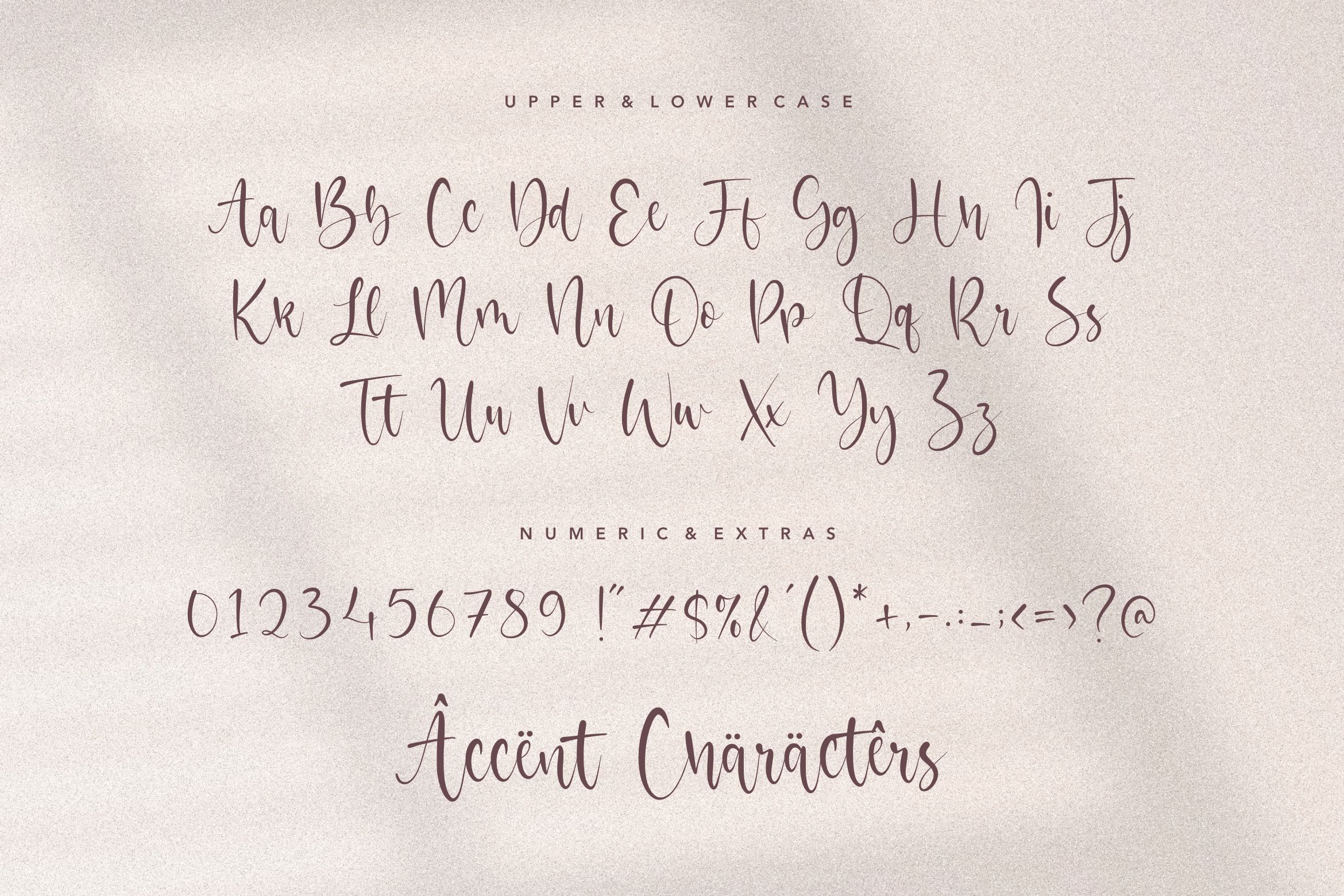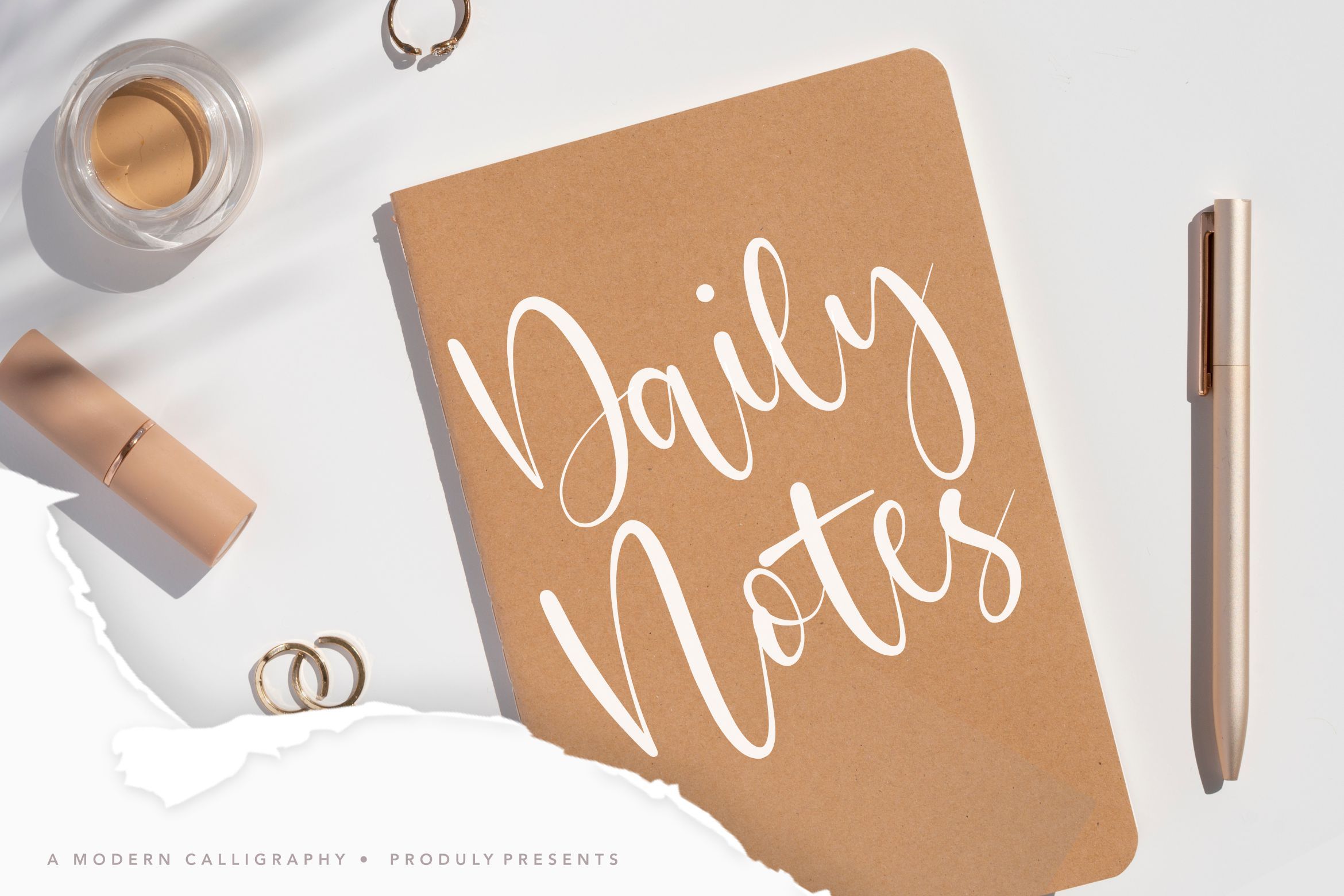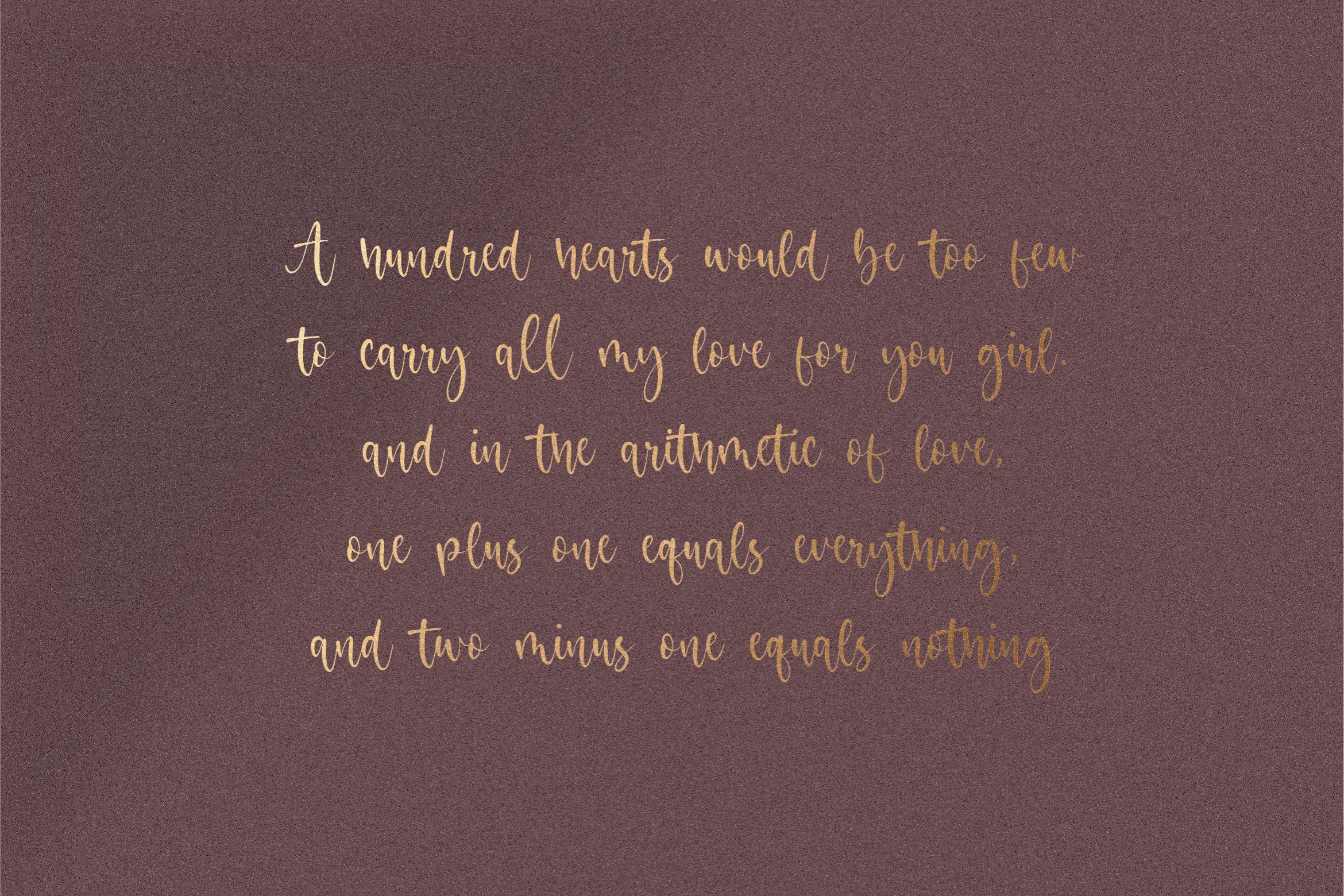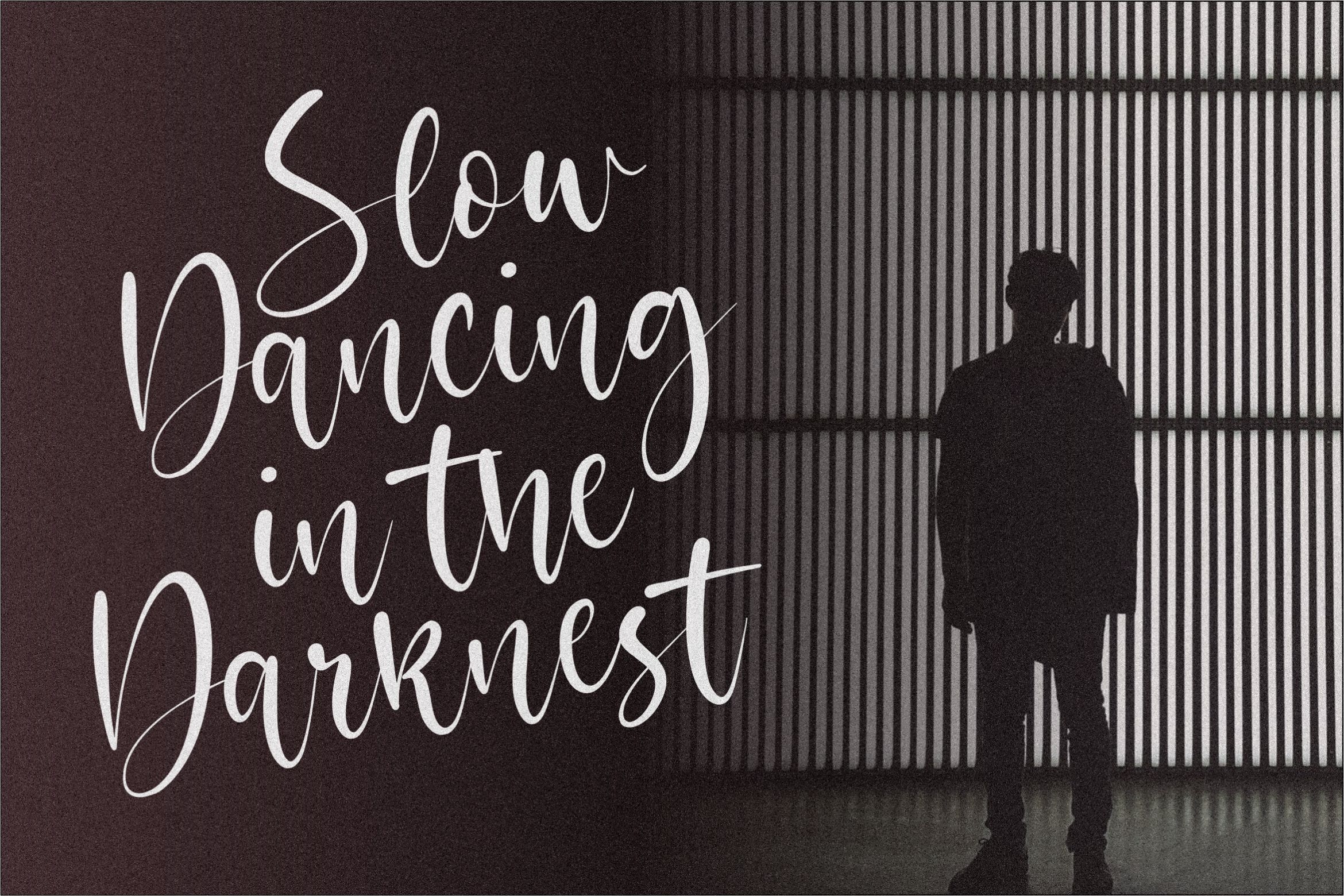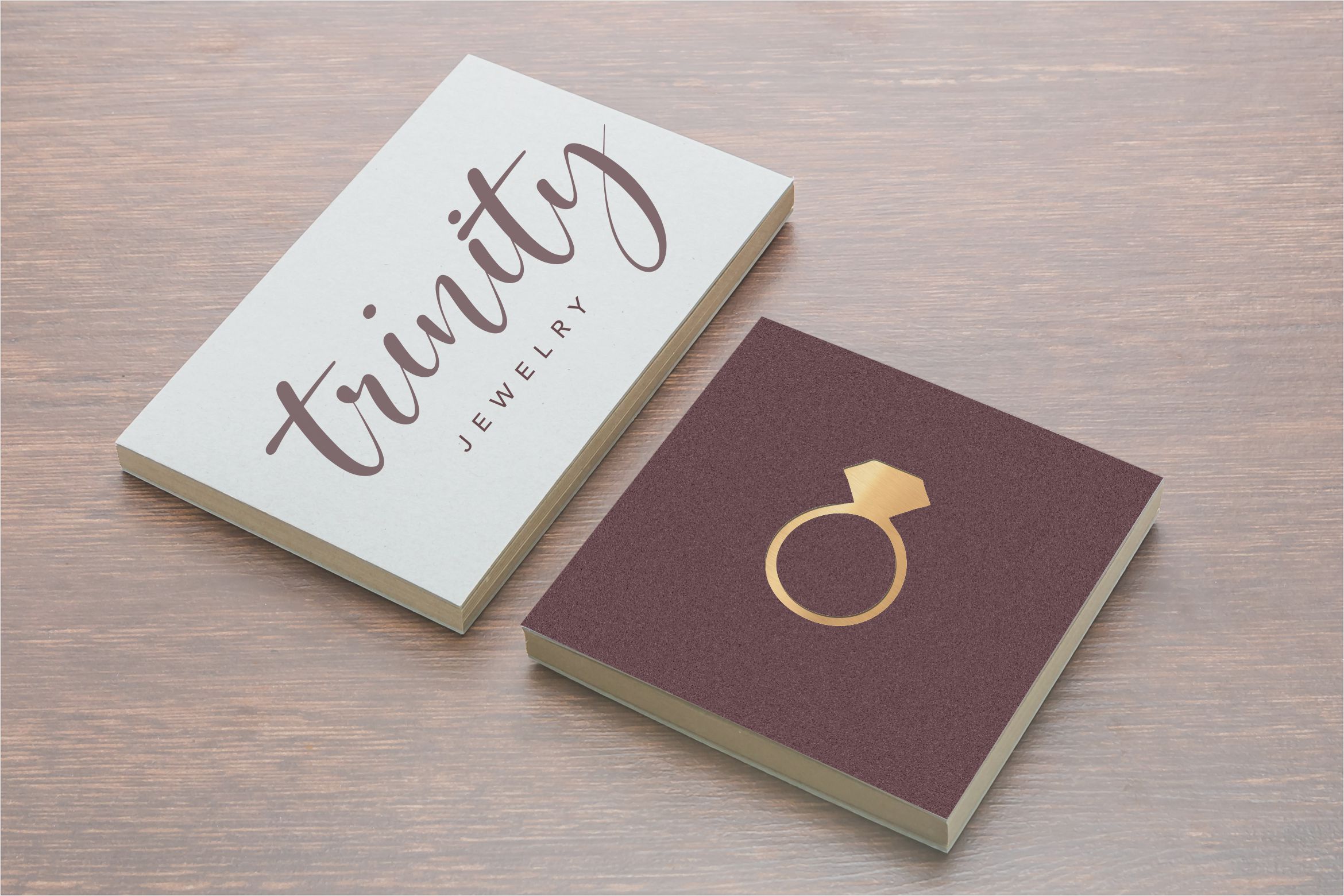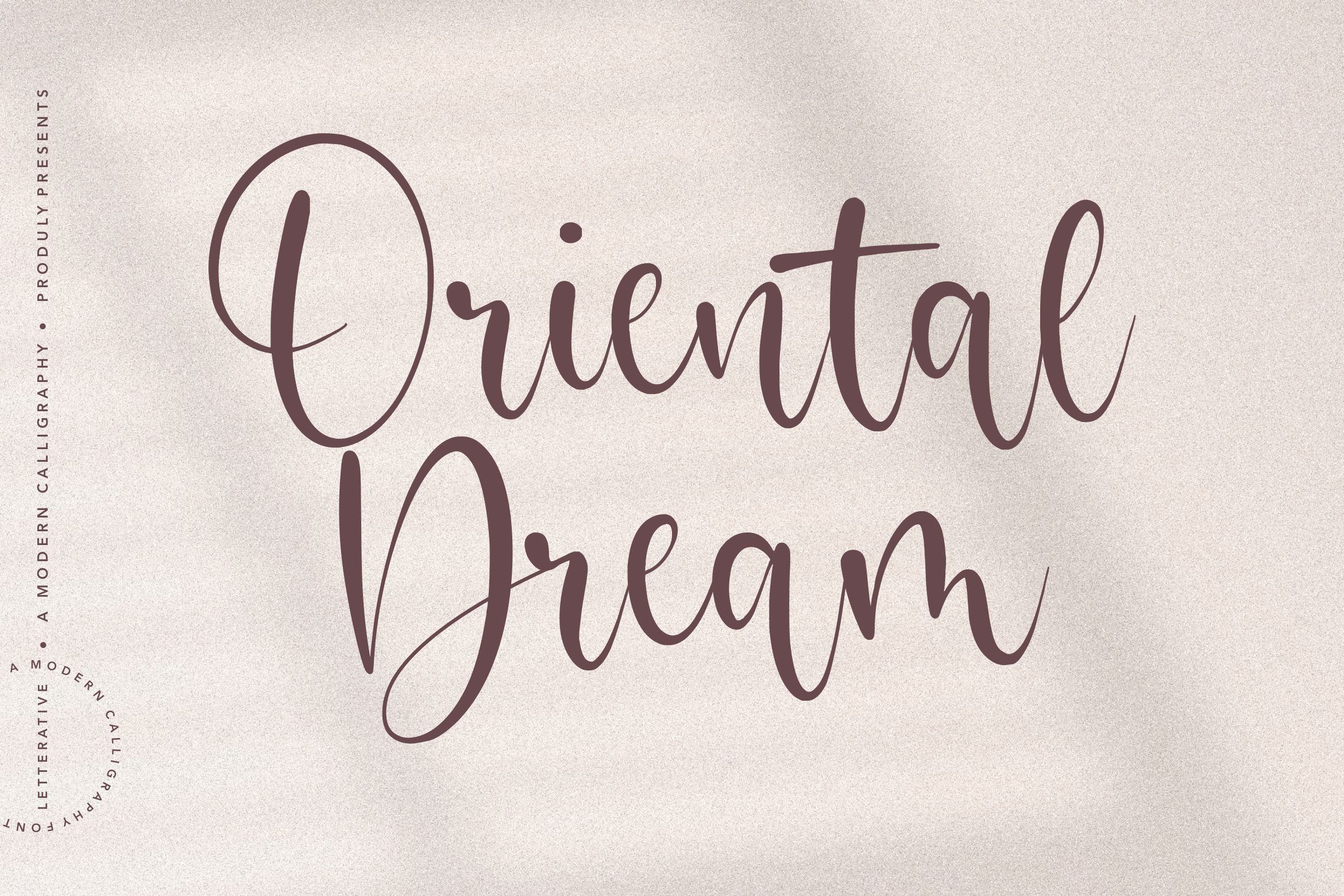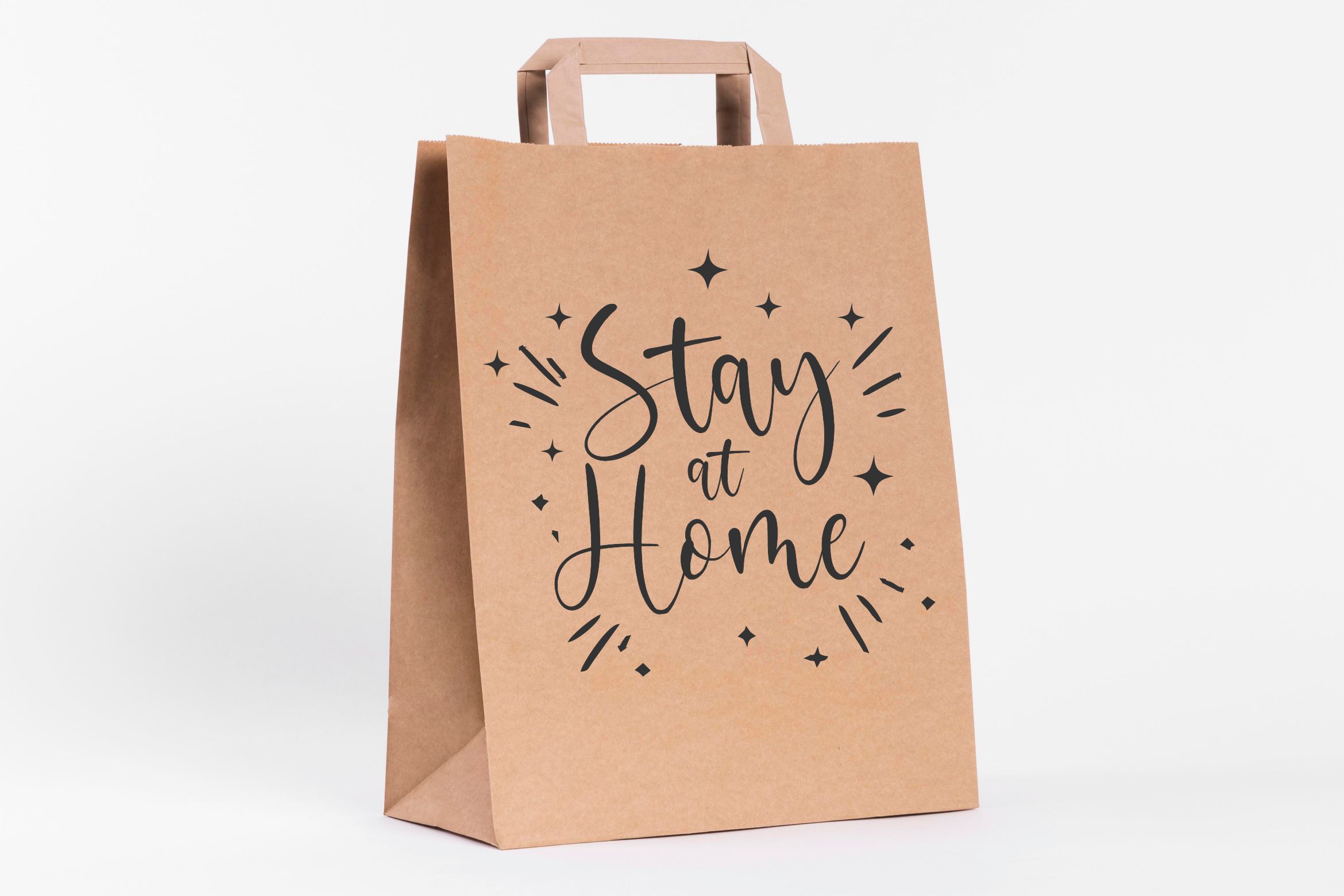
Oriental Dream Modern Calligraphy Font
About Oriental Dream Modern Calligraphy Font
Introducing by Letterative Studio : Oriental Dream Font Oriental Dream is a Modern Calligraphy Font Oriental Dream is a great scrip font. It features a varying baseline, smooth lines, gorgeous glyphs and stunning alternates. Get inspired by its elegant look and create cute designs! This font includes : TTF and OTF Oriental Dream also multilingual support Enjoy the font! Feel free to comment or feedback Send me PM or email Thank you!